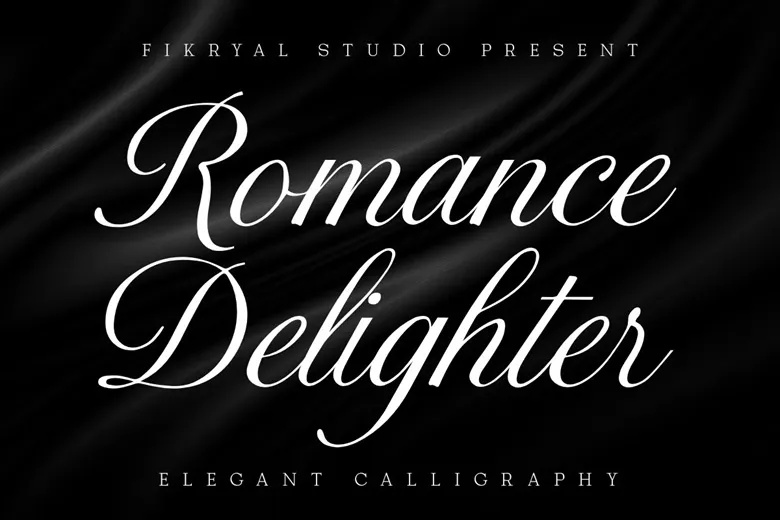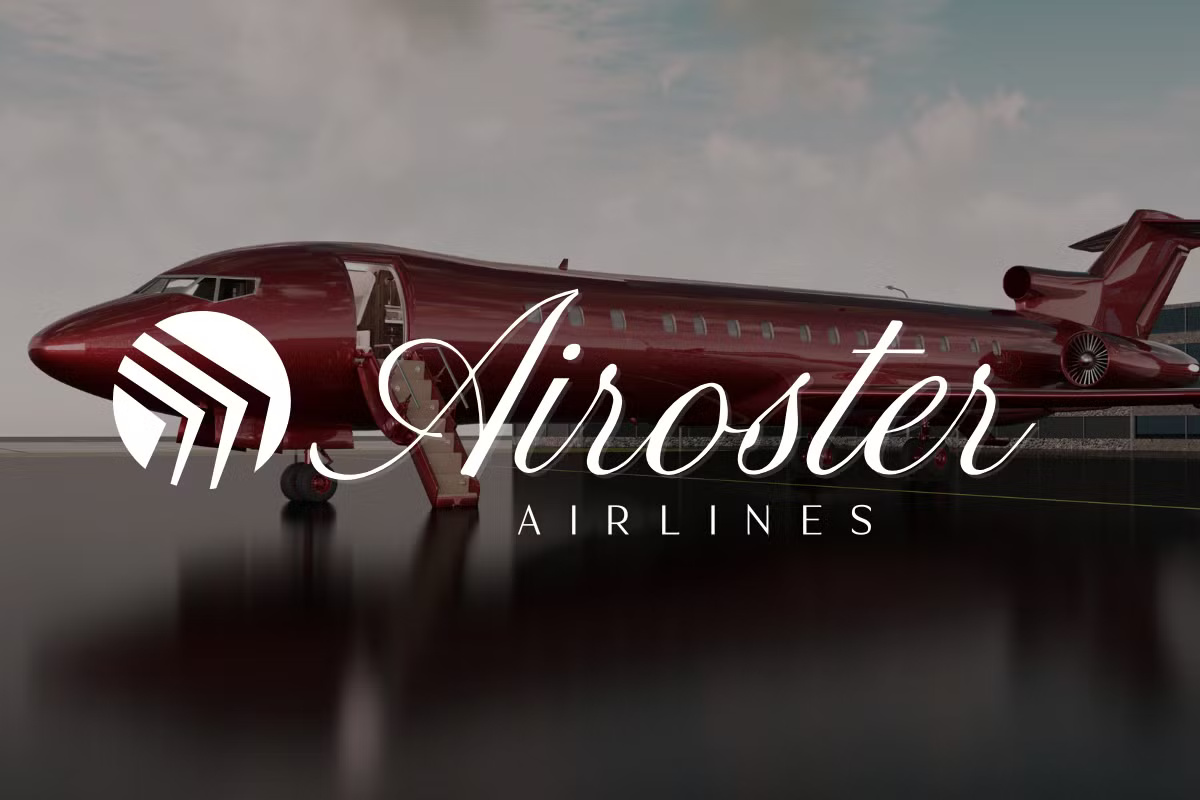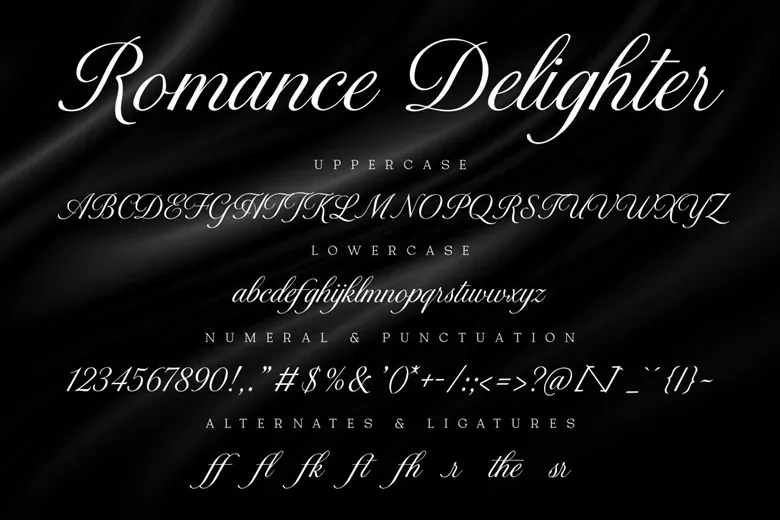
Romance Delighter Font
Romance Delighter is a beautifully crafted calligraphy script font that brings an elegant and captivating flair to any design project. Available in two styles—Regular and Bold—this font features graceful curves and fluid strokes, carefully designed to convey sophistication and charm. Its luxurious aesthetic adds a romantic touch to every message typed.
Perfect for upscale branding, Romance Delighter is ideal for cosmetic packaging, luxury wedding invitations, high-end logos, and other premium design applications. This typeface was created to stand out wherever elegance and exclusivity are essential.
Romance Delighter Calligraphy Script Font